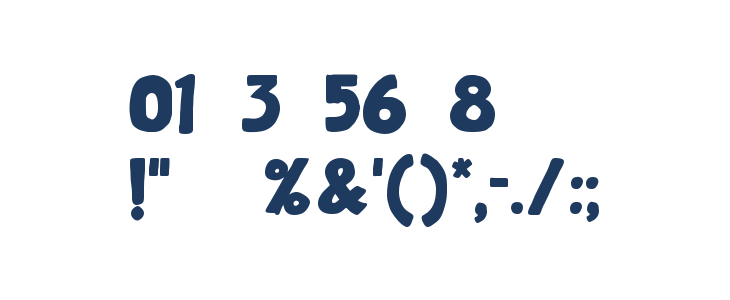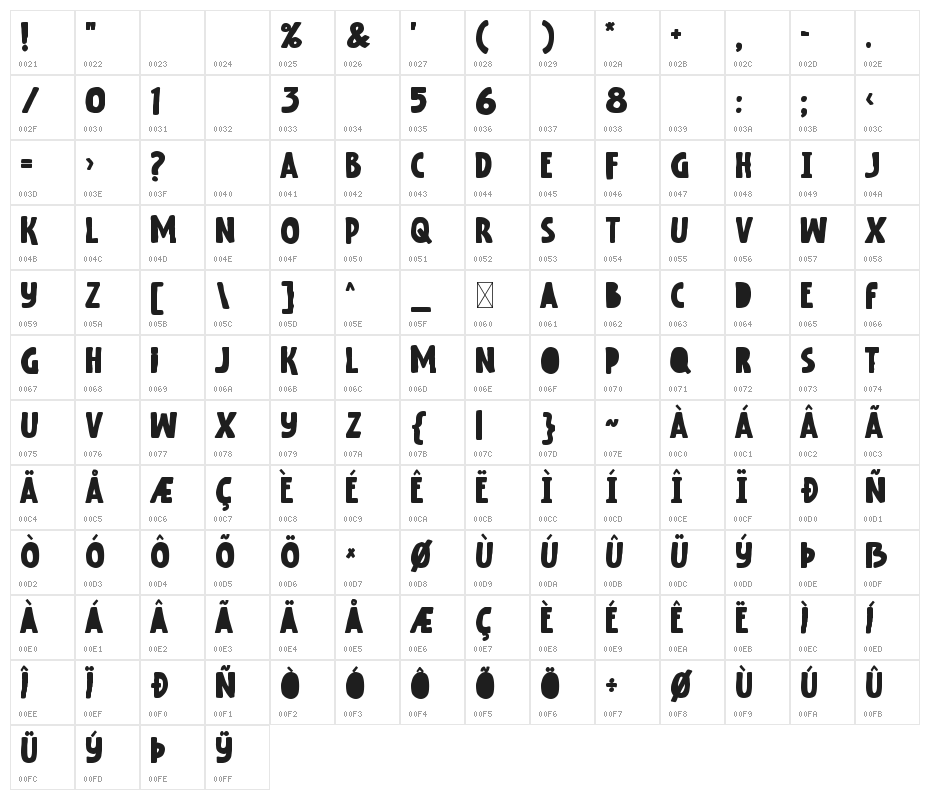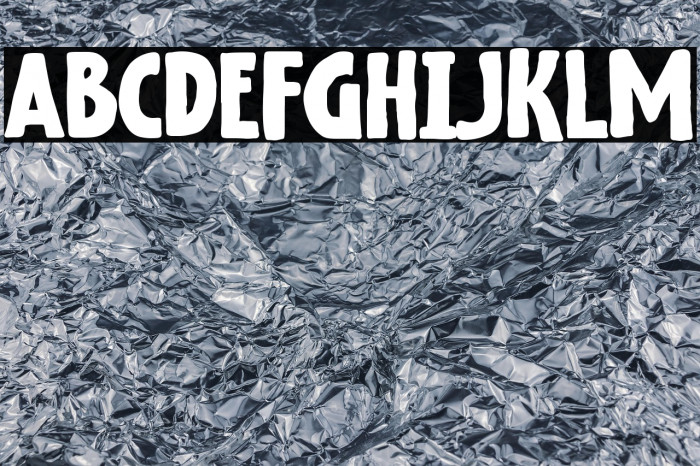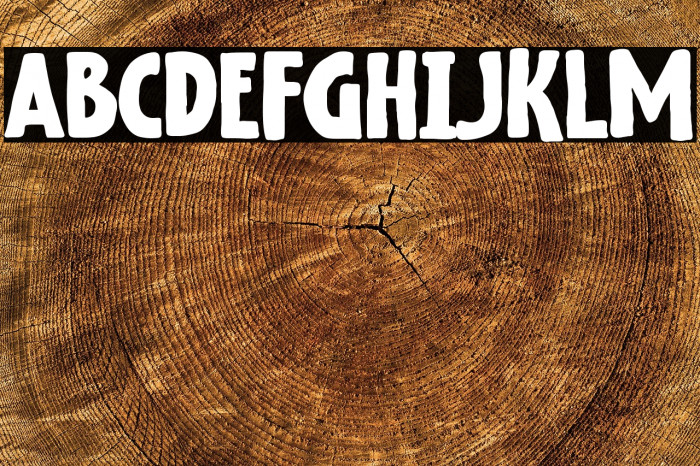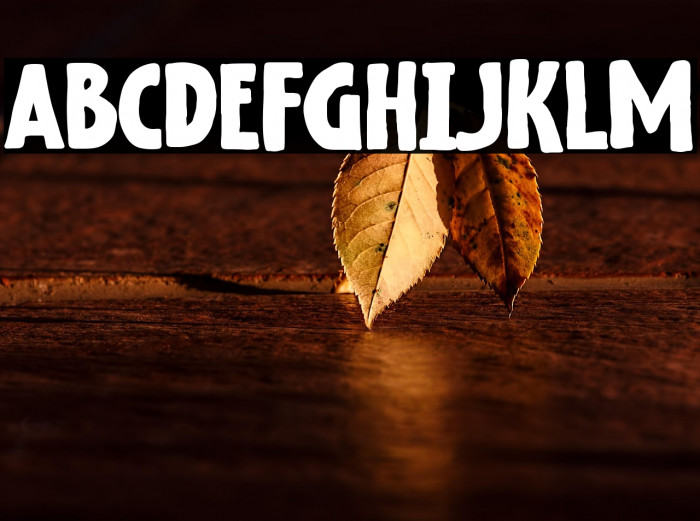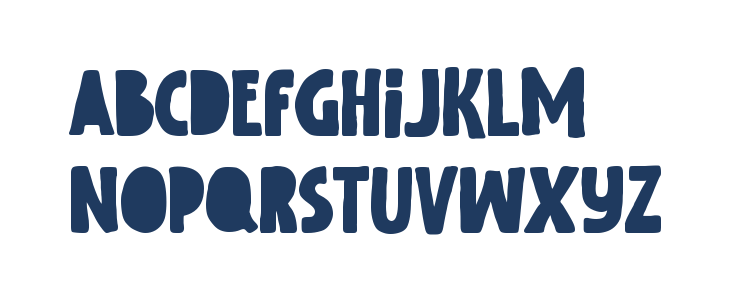
This font features a bold and playful style with thick, rounded strokes that give it a friendly and approachable appearance. The characters are slightly irregular, adding a hand-drawn, whimsical feel. The uppercase and lowercase letters maintain a consistent weight, contributing to a cohesive look. The numbers and special characters follow the same design principles, ensuring uniformity across the font. Its unique style makes it stand out, while the boldness ensures readability.
| Overall Style | Playful, Whimsical |
| Proposed Projects | Ideal for children's books, playful branding, posters, and creative projects that require a fun and engaging typeface. |